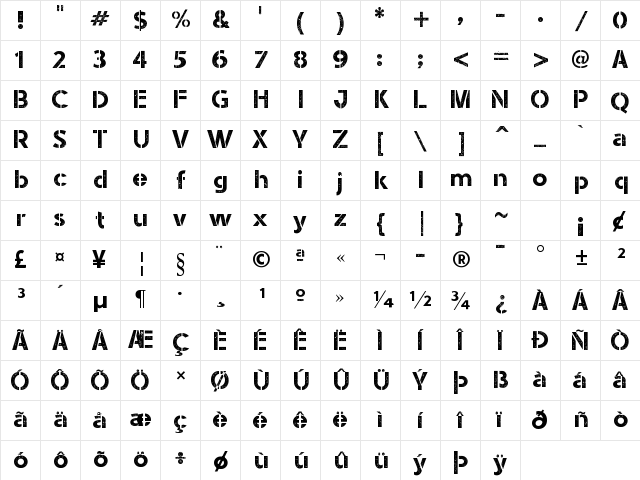
Stencil Army WW I has the no-nonsense character of military stencilling and tactical signage, projecting authority and directness.
A strong choice for security brands, outdoor gear, and high-stakes visual communication.
Pro Tip: Try Stencil Army WW I in all-caps for the most authentic military signage feel. It pairs well with stark, minimal layouts and muted colour palettes.